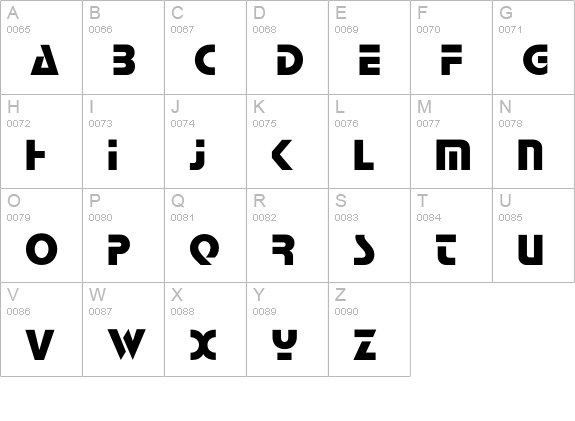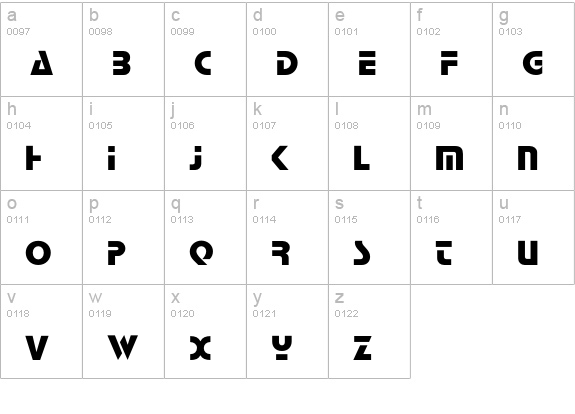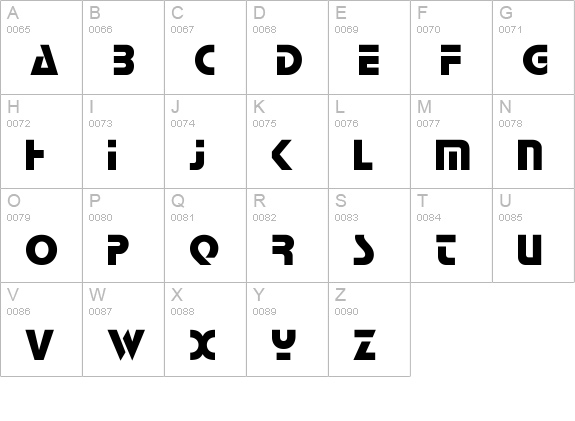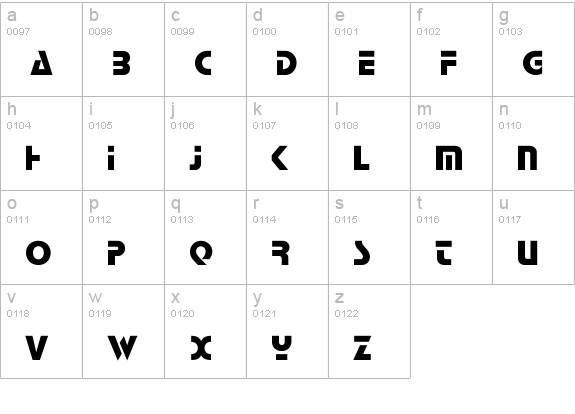
Quasar Font Details
Introducing Quasar, a stunning display font that exudes elegance and modernity. With its sleek lines and unique letterforms, Quasar captures attention and adds a touch of sophistication to any design project. This versatile typeface is perfect for headlines, logos, posters, and branding materials. What sets Quasar apart is not just its aesthetic appeal, but also its accessibility. This remarkable font is available for free, allowing designers and creatives to unleash their artistic vision without any limitations. Whether you're a seasoned professional or an aspiring designer, Quasar's availability as a free download opens up a world of possibilities. To access this remarkable font, simply visit FontsMarket.com. There, you'll find Quasar and a plethora of other high-quality typefaces, all ready to enhance your design projects. FontsMarket.com is a trusted source for free fonts, ensuring that you can download Quasar with ease and confidence. Embrace the beauty and versatility of Quasar, and let your creativity soar. With its free availability, this font empowers designers to make a lasting impact with their work, without breaking the bank. Don't miss out on the opportunity to elevate your designs with Quasar - download it today from FontsMarket.com and unlock a world of typographical brilliance.